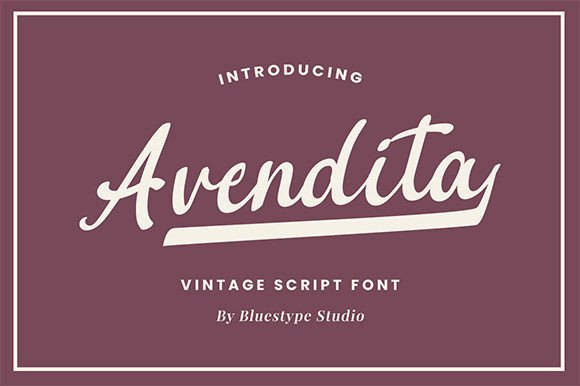
The Designer’s Delight: Avendita Font
I’ll never forget the time I was working on a branding project for a luxury fashion client. I had spent hours agonizing over the perfect logo design, but something was missing. The design looked sleek and modern, but it lacked a certain je ne sais quoi. That’s when I realized the problem wasn’t the design itself, but the font I was using. It was then that I stumbled upon Avendita Font, a vintage and neat handwritten script font that instantly elevated my design to the next level.
First Impressions: A Love Affair with Avendita
Avendita Font is a true gem in the world of typography. Its classy calligraphic influences combined with a contemporary and fresh feel make it perfect for a wide range of design projects. From t-shirt designs and logotypes to branding, quotes, social media posts, watermarks, clothing, and YouTube videos, Avendita is the perfect companion for any creative project.
So, what makes Avendita so special? Here are a few things I love about this font:
- ✨ Unique and distinctive style: Avendita has a one-of-a-kind personality that sets it apart from other fonts.
- ✅ Elegant and sophisticated: This font exudes luxury and sophistication, making it perfect for high-end branding projects.
- 💫 Versatile: Avendita can be used for a wide range of design projects, from digital to print.
- 🎨 Highly customizable: With OpenType features, glyphs, and stylistic alternates, you can experiment with different variations to create a unique look.
Of course, no font is perfect, and Avendita has a few small quirks:
- 🤔 Limited use in body text: While Avendita is stunning as a display font, it may not be the best choice for long blocks of body text.
- ⚠️ Some characters may require manual kerning: Depending on your design, you may need to adjust the kerning of certain characters to achieve optimal results.
The Story Behind Avendita
Avendita Font was designed by a team of typographers who wanted to create a font that would evoke the elegance and sophistication of traditional calligraphy. Inspired by vintage scripts and modern typography, Avendita was born. The font’s name is derived from the Latin word “avendita,” meaning “to sell” or “to offer,” reflecting the designer’s intention to create a font that would help designers “sell” their ideas and “offer” their unique perspective.
Q: What is Avendita Font?
Avendita Font is a vintage and neat handwritten script font that’s perfect for a wide range of design projects.
Q: Is Avendita suitable for body text?
While Avendita is stunning as a display font, it may not be the best choice for long blocks of body text. It’s best used for headlines, titles, and short paragraphs.